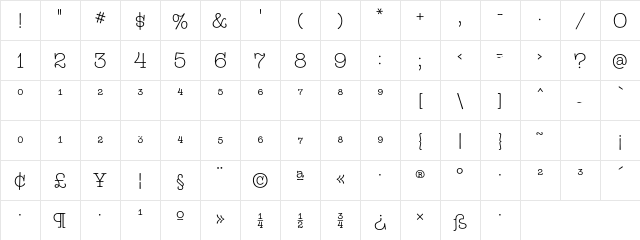
Shag-MysteryFractions Regular Free Font
Shag-MysteryFractions Regular
Designer: Ken Barber & Christian Schwartz
Design Context for Shag-MysteryFractions
Shag-MysteryFractions is a composed and adaptable typeface that performs quietly and consistently across a wide range of design contexts.